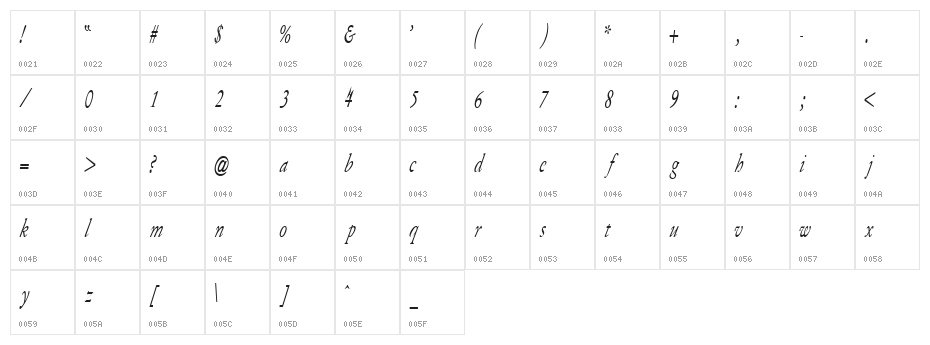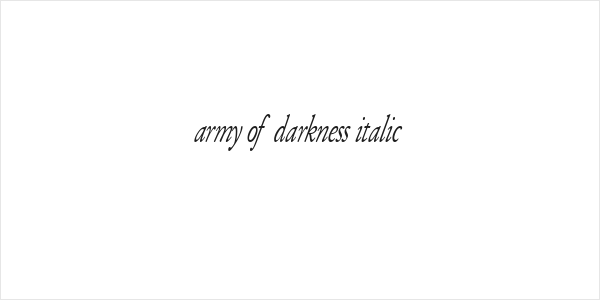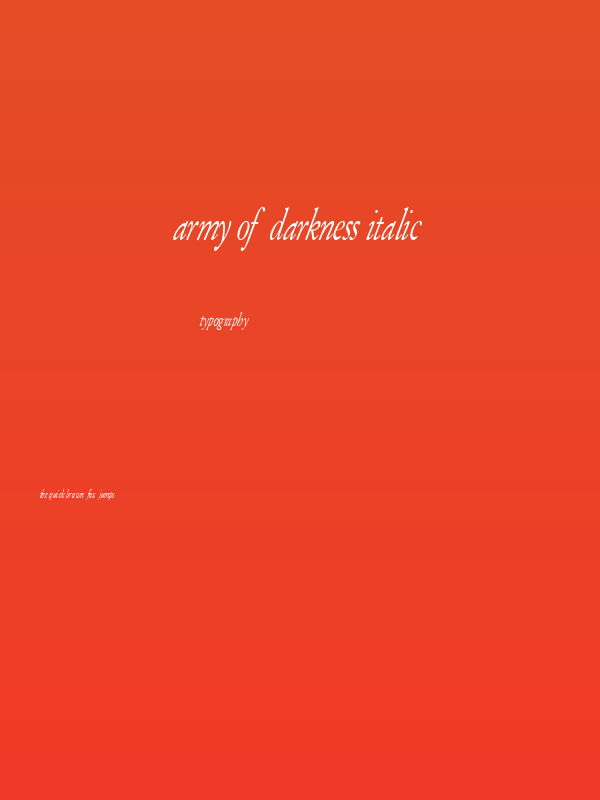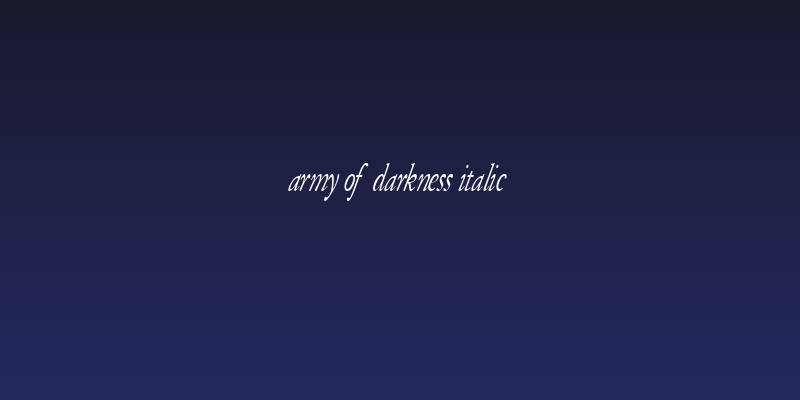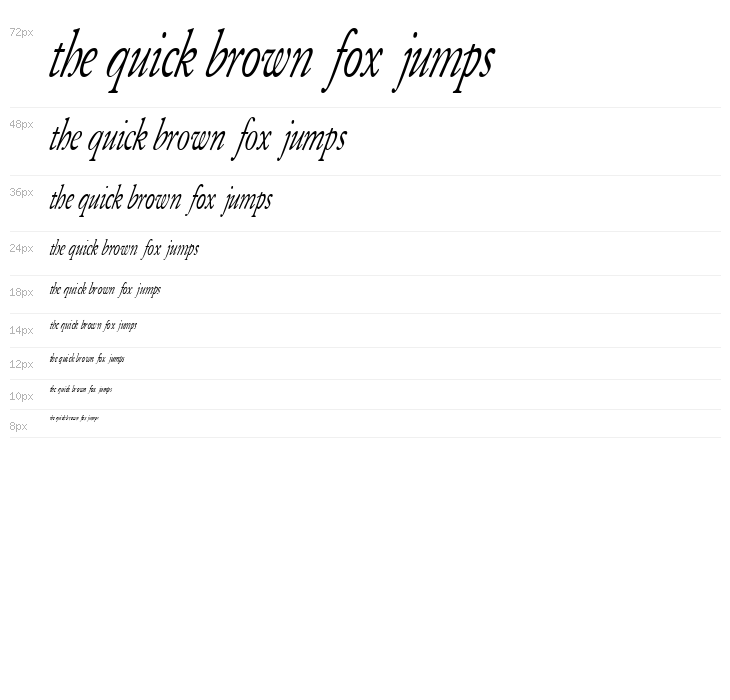
Army of Darkness Italic Font
Army of Darkness Italic Description
This font features a dynamic and elegant italic style, characterized by its flowing and cursive letterforms. The strokes are smooth and slightly slanted, giving it a sense of motion and sophistication. The uppercase and lowercase letters are well-balanced, with a consistent slant that enhances readability while maintaining an artistic flair. The numerals and special characters are designed to complement the overall style, ensuring a cohesive appearance across all text. This font is ideal for projects that require a touch of elegance and creativity.
| Overall Style | Elegant, Artistic |
| Use Case | Headlines, Invitations, Branding |
| Proposed Projects | Ideal for wedding invitations, elegant branding, artistic posters, and creative editorial designs. |